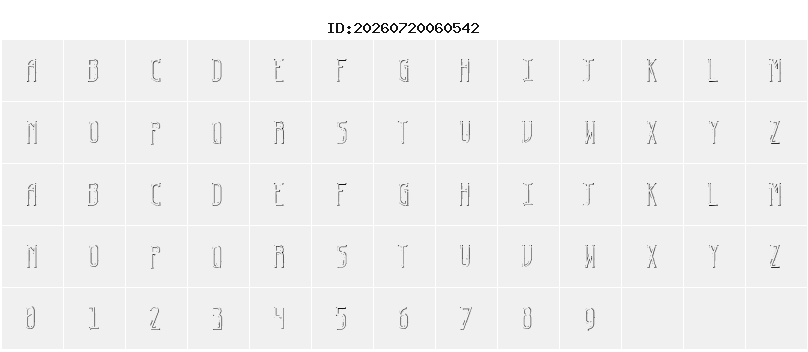
• Font Name: ESPY
• Designer: Alexis Valladares
About ESPY.ttf
ESPY.ttf is a modern, elegant sans-serif font designed for ultimate readability and visual harmony. Perfect for branding, headlines, web design, and print materials.